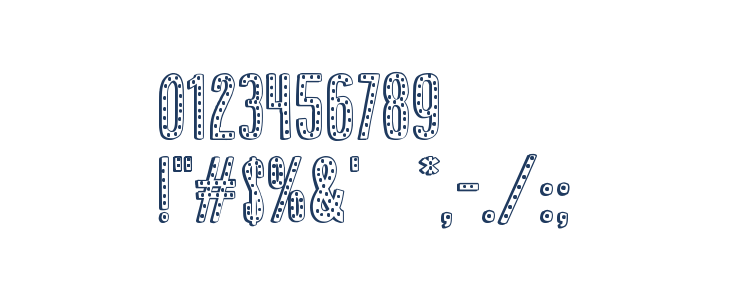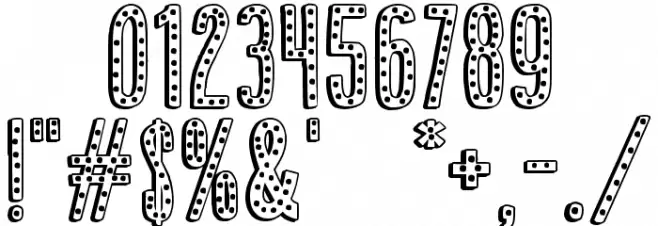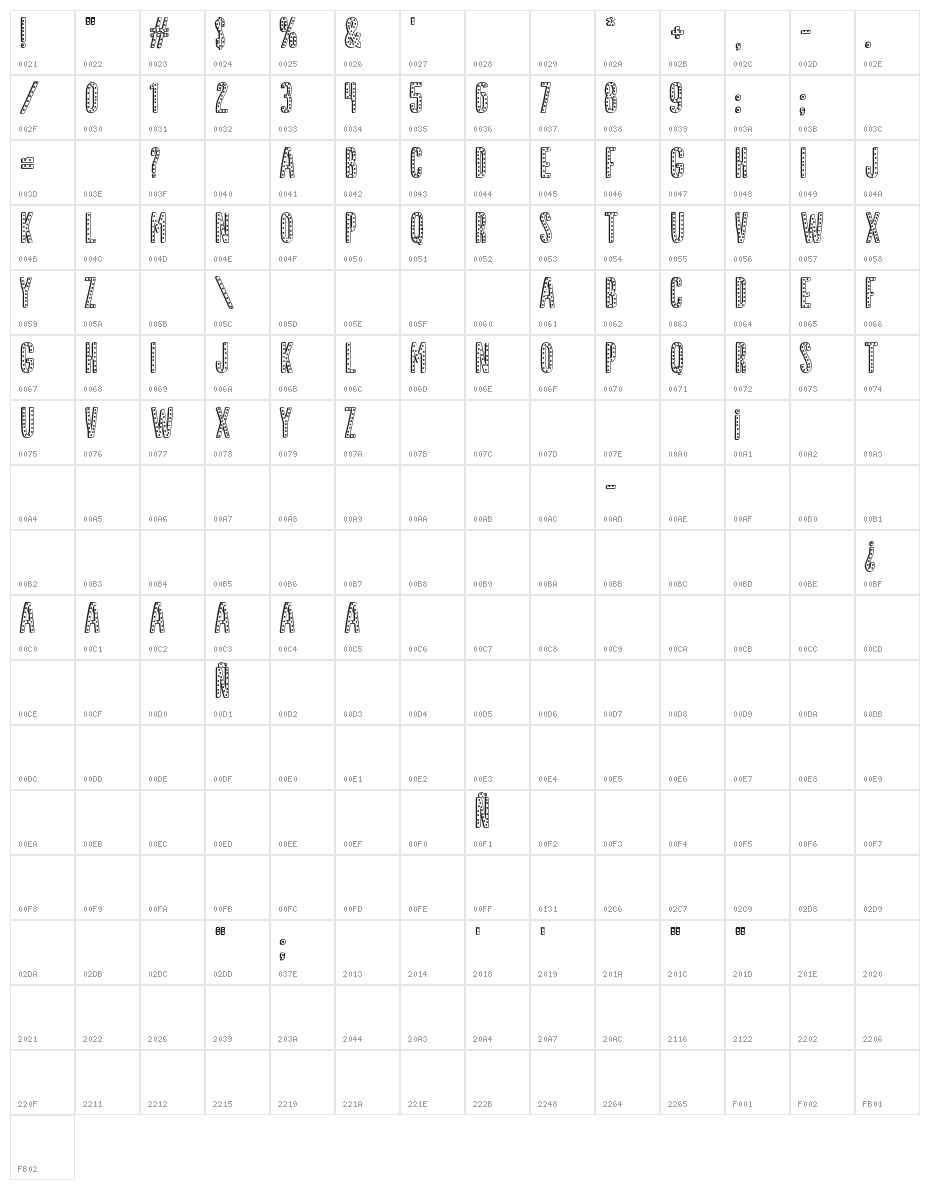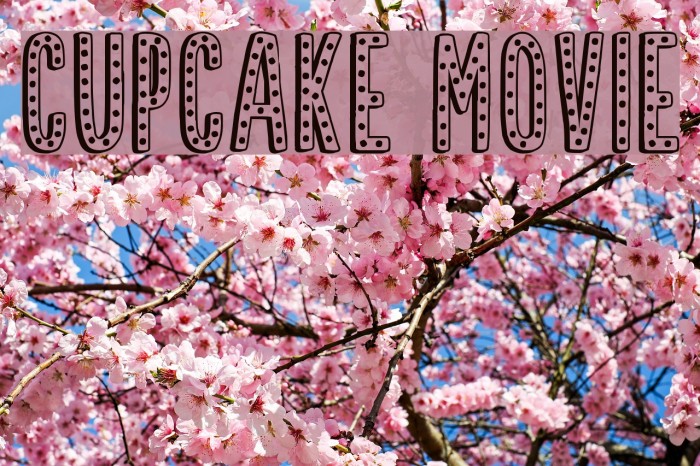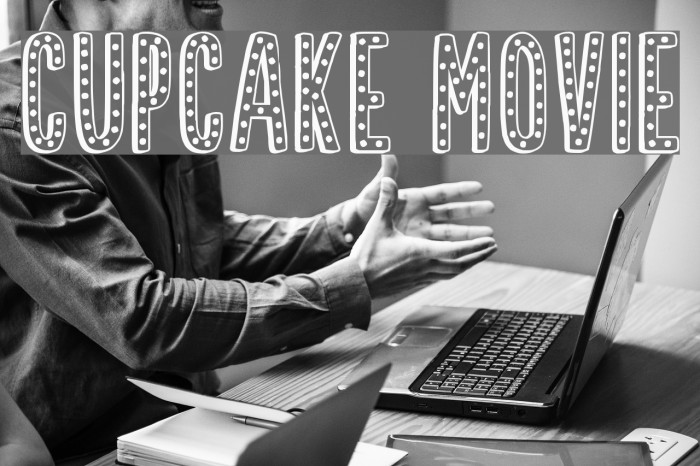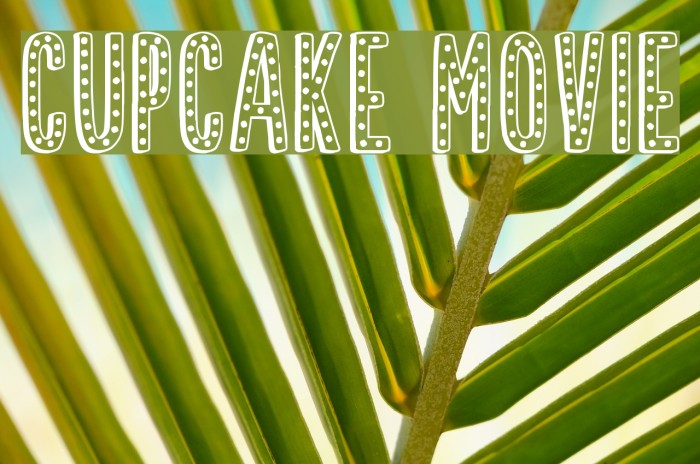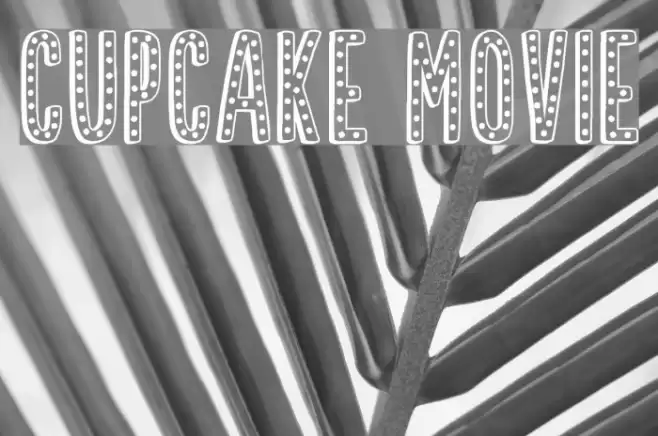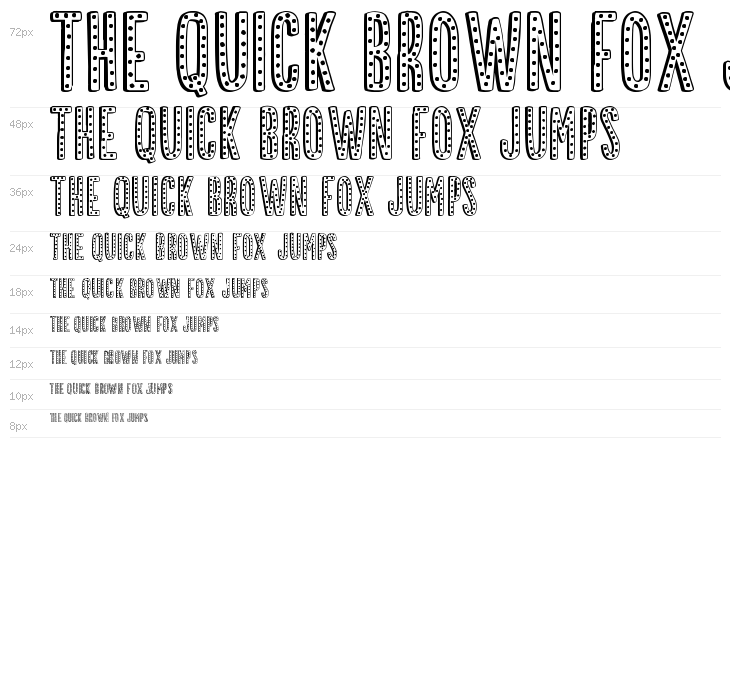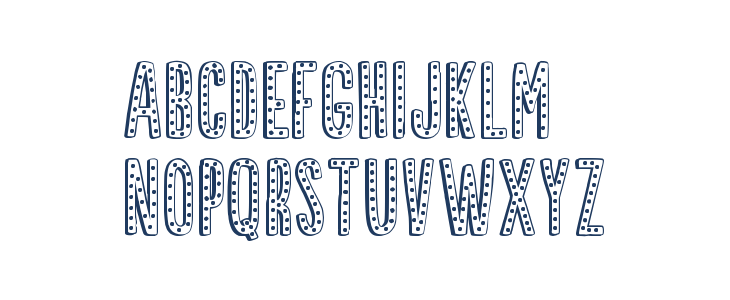
Cupcake Movie Font
Cupcake Movie Description
This playful and decorative font features a unique design with bold outlines and an inner dotted pattern, reminiscent of marquee lights or carnival signage. The characters are tall and slightly condensed, giving them a striking appearance. The uppercase and lowercase letters maintain a consistent style, while the numbers and special characters complement the overall theme. The font's whimsical and eye-catching design makes it ideal for projects that require a fun and lively touch.